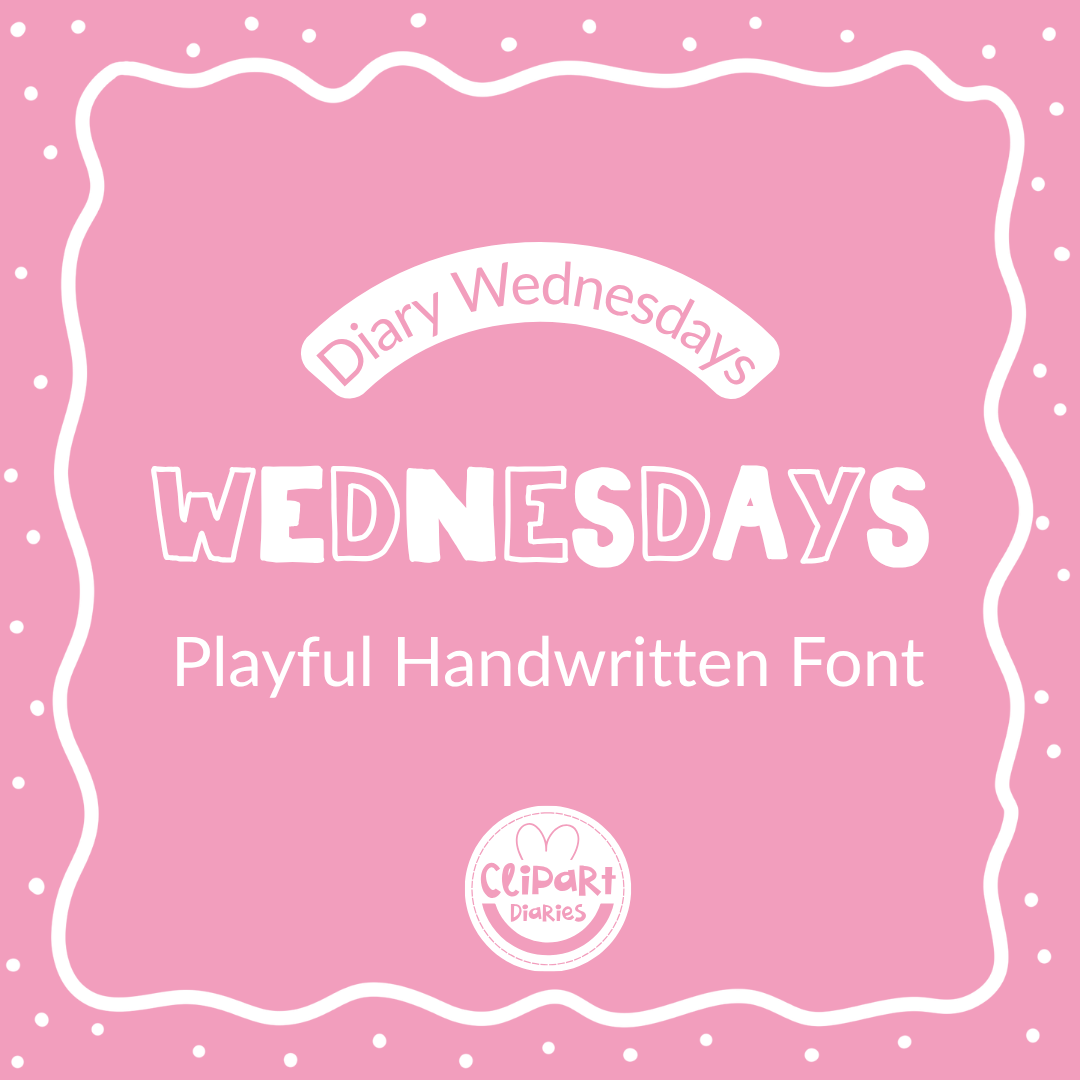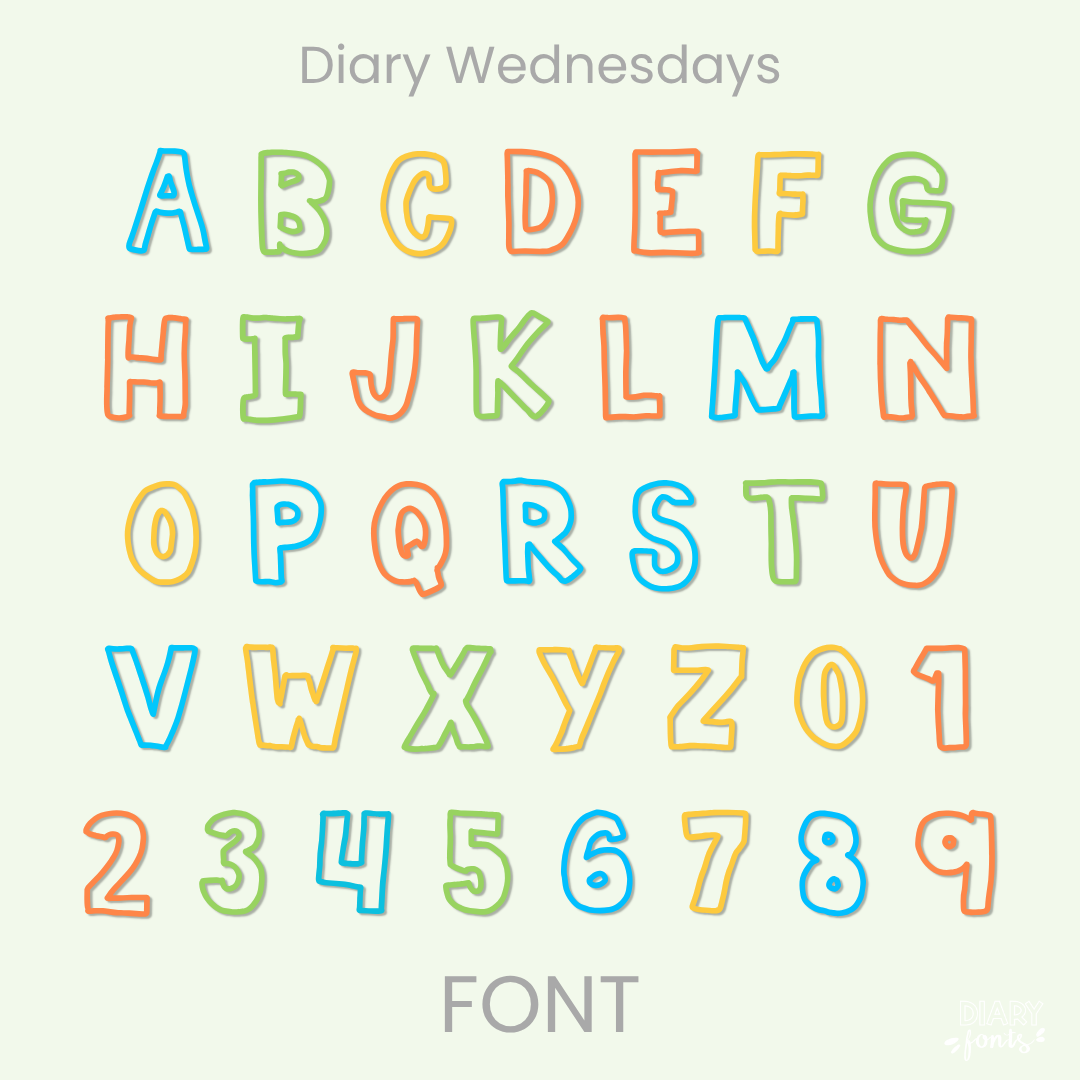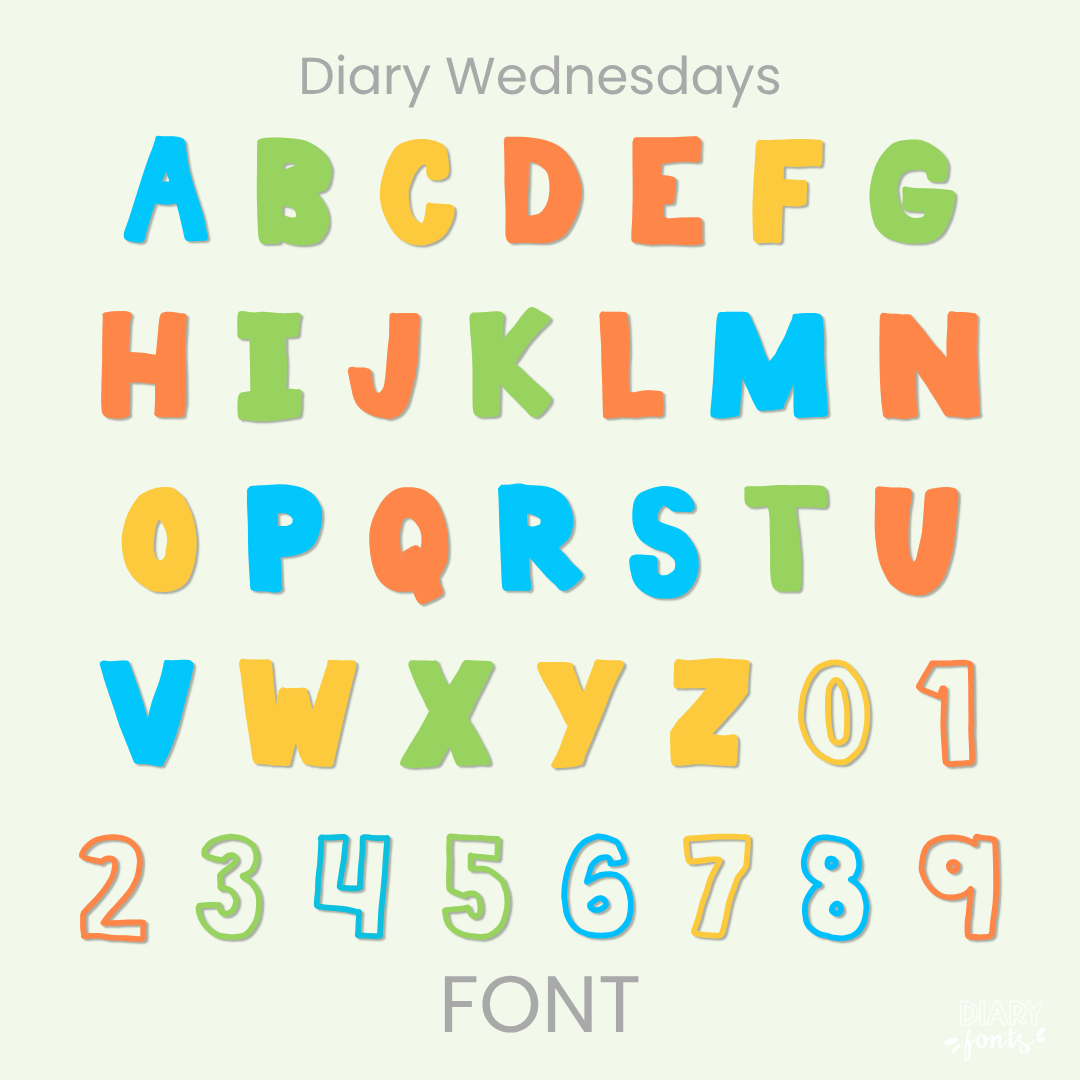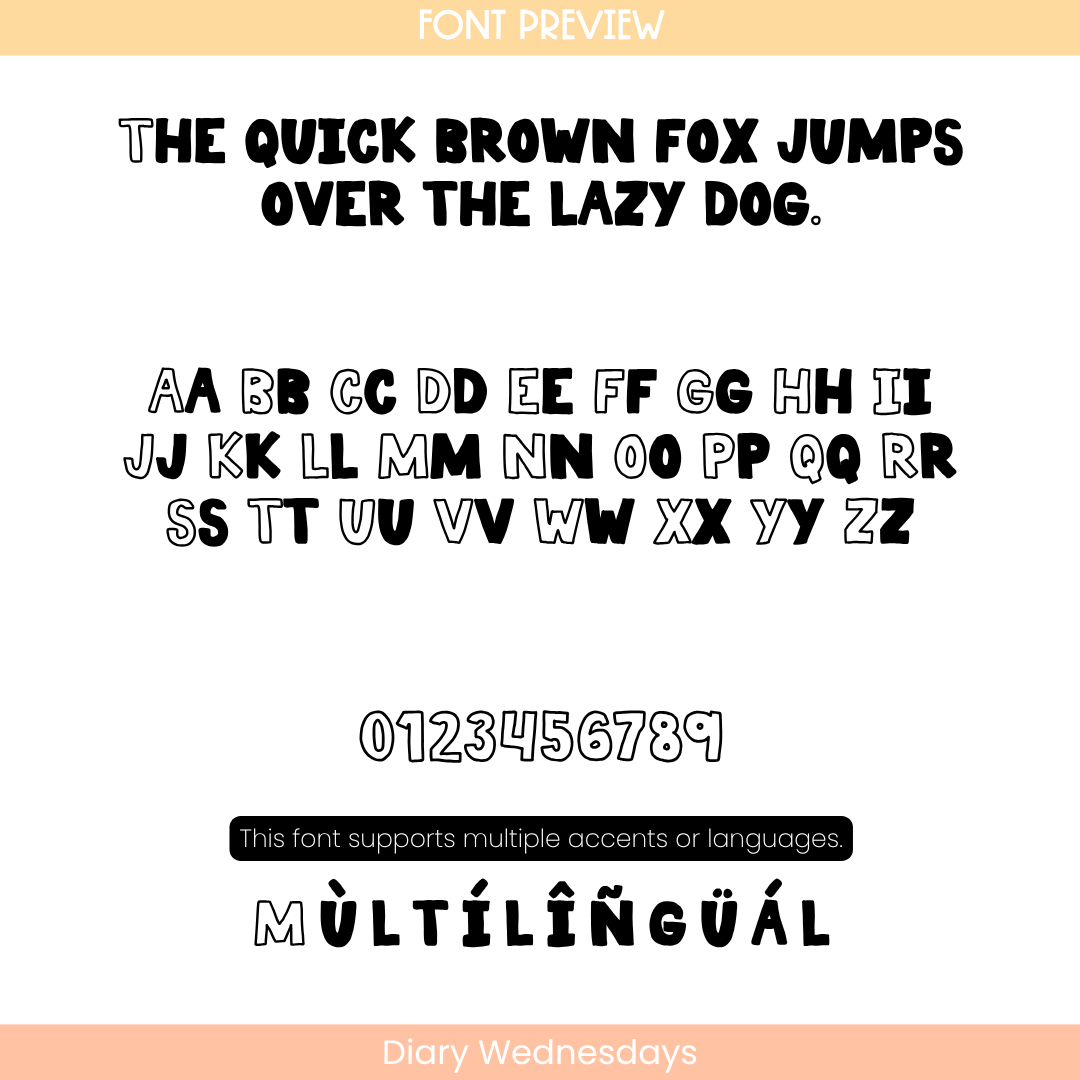
If you’ve been looking for a go-to bold handwritten font that adds an instant pop of fun with a unique twist, Diary Wednesdays is about to become your new absolute favorite design asset. This delightful typeface features a creative mix-and-match style, beautifully combining thick, solid blocky letterforms with clean matching outline characters. Standing tall and confident along the baseline, its chunky, hand-drawn design cuts right through background clutter, making it an exceptionally clear and legible worksheet typography choice for your sweet students.
It is the absolute perfect choice for typing up high-impact bulletin boards, bold presentation slide titles, seasonal spelling worksheets, weekly newsletters, and fun classroom center signs where you want a modern, energetic vibe. Inside the download, you’ll get a versatile set of alternating solid and outline uppercase and lowercase print letters, clean matching numbers, and multi-accent markings for complete multilingual support. It drops right into Canva, MS Office, or Adobe on your desktop, and pairs beautifully with Procreate and GoodNotes on your iPad. Whether you’re prepping daily printables for your own sweet classroom or designing a fresh new commercial-use product line for your online teacher shop, this playful display heading font adds a touch of confident, friendly style to your toolkit.